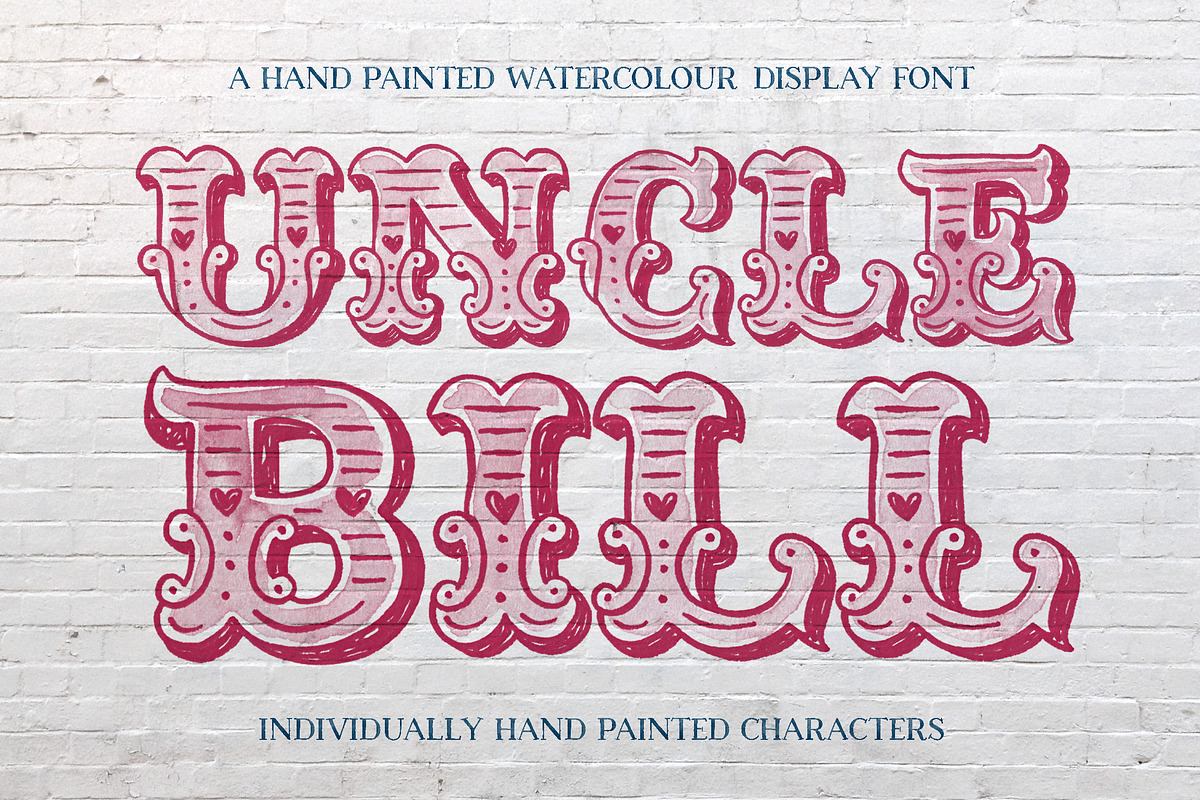
Uncle Bill Watercolour Display Font Free Download
Uncle Bill Watercolour Display Font Free Download is a unique and artistic display typeface that brings the fluid, vibrant charm of watercolor art to your designs. With its bold strokes and watercolor textures, this font is perfect for creative projects such as posters, logos, event invitations, branding, and social media graphics.
The font’s hand-painted, watercolor style makes it ideal for projects that need a touch of personal creativity and artistic flair. Whether you're working on a custom logo, a vintage-style design, or an art-inspired project, Uncle Bill adds a dynamic and visually striking element to your typography.